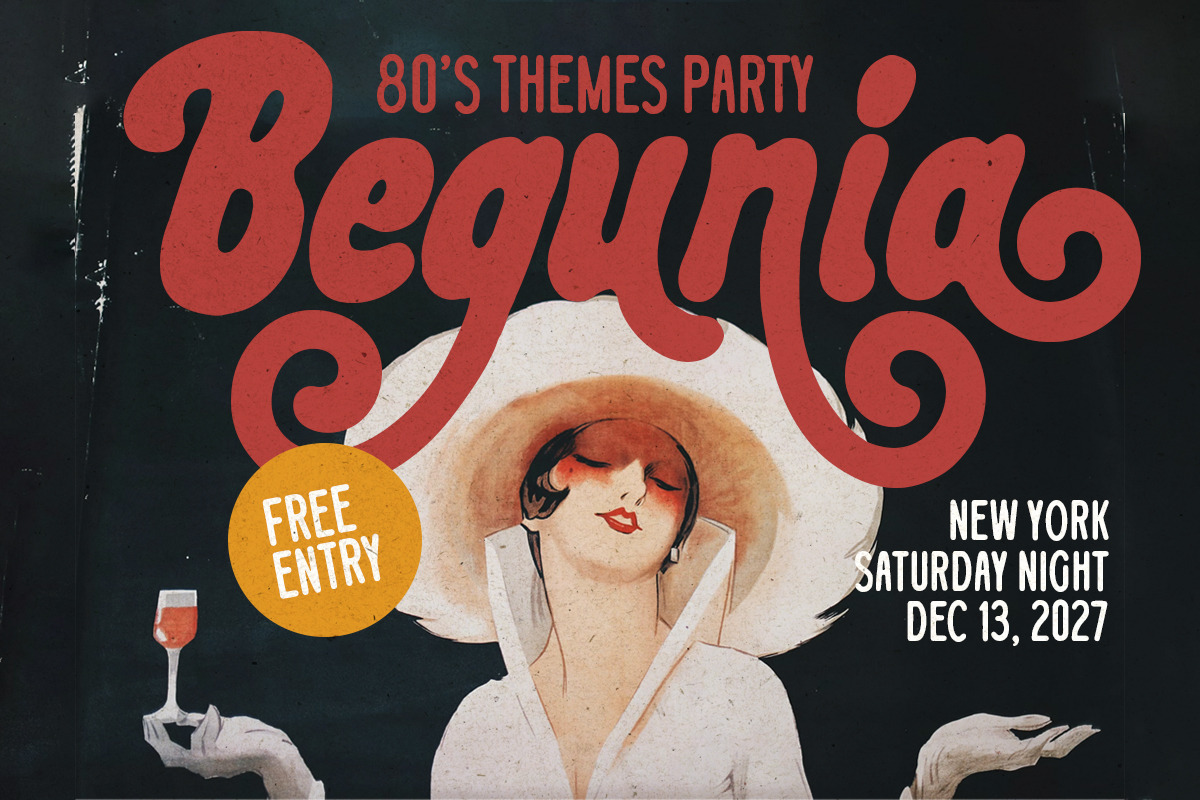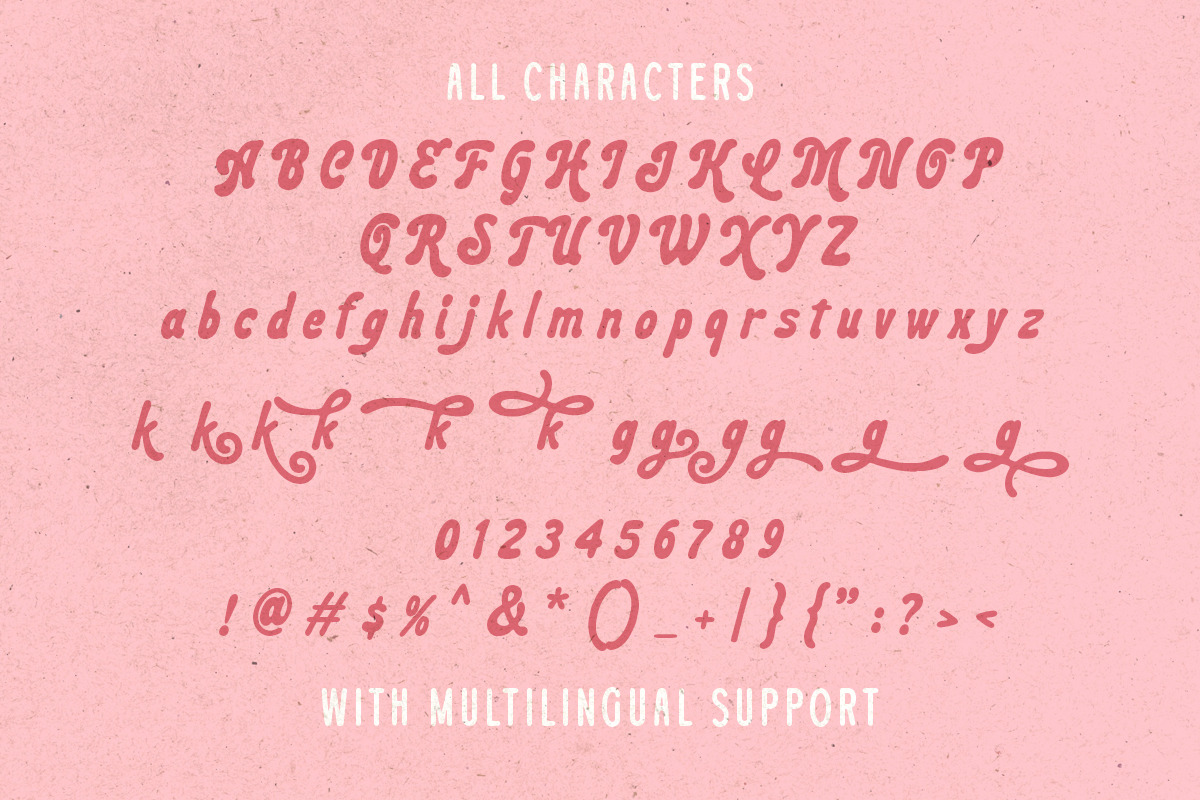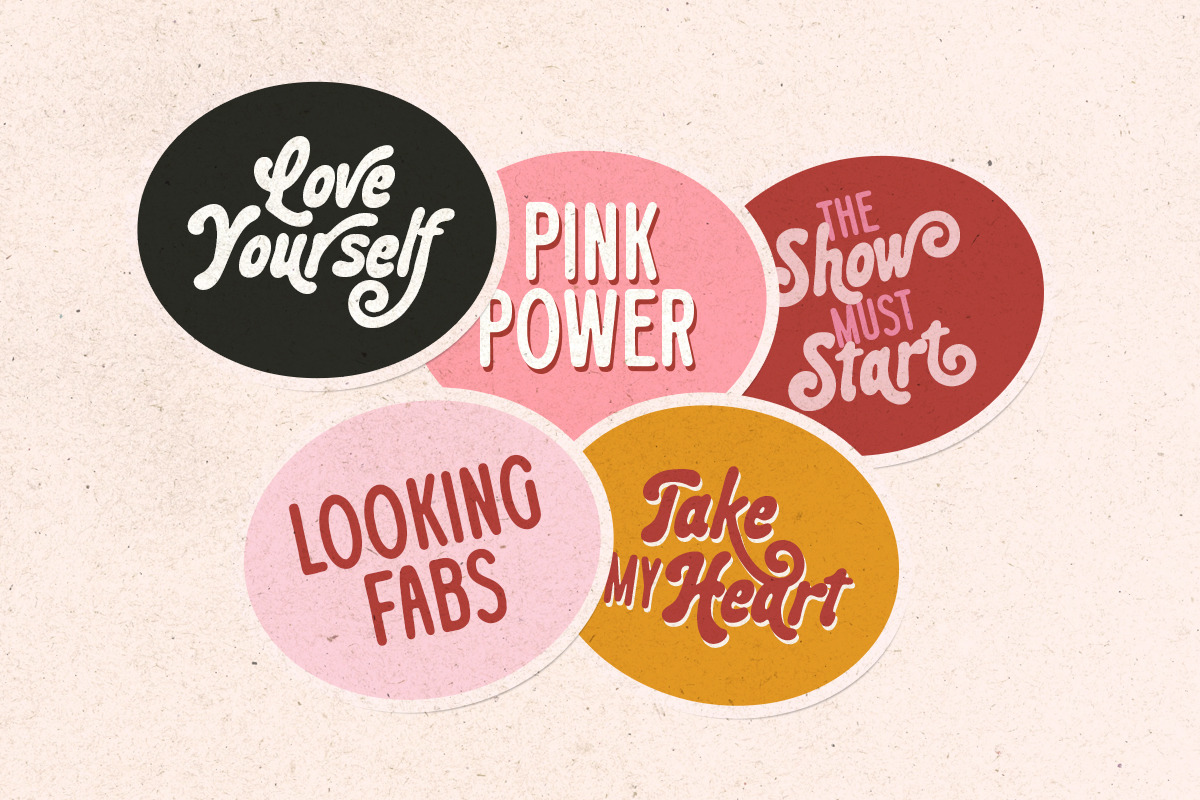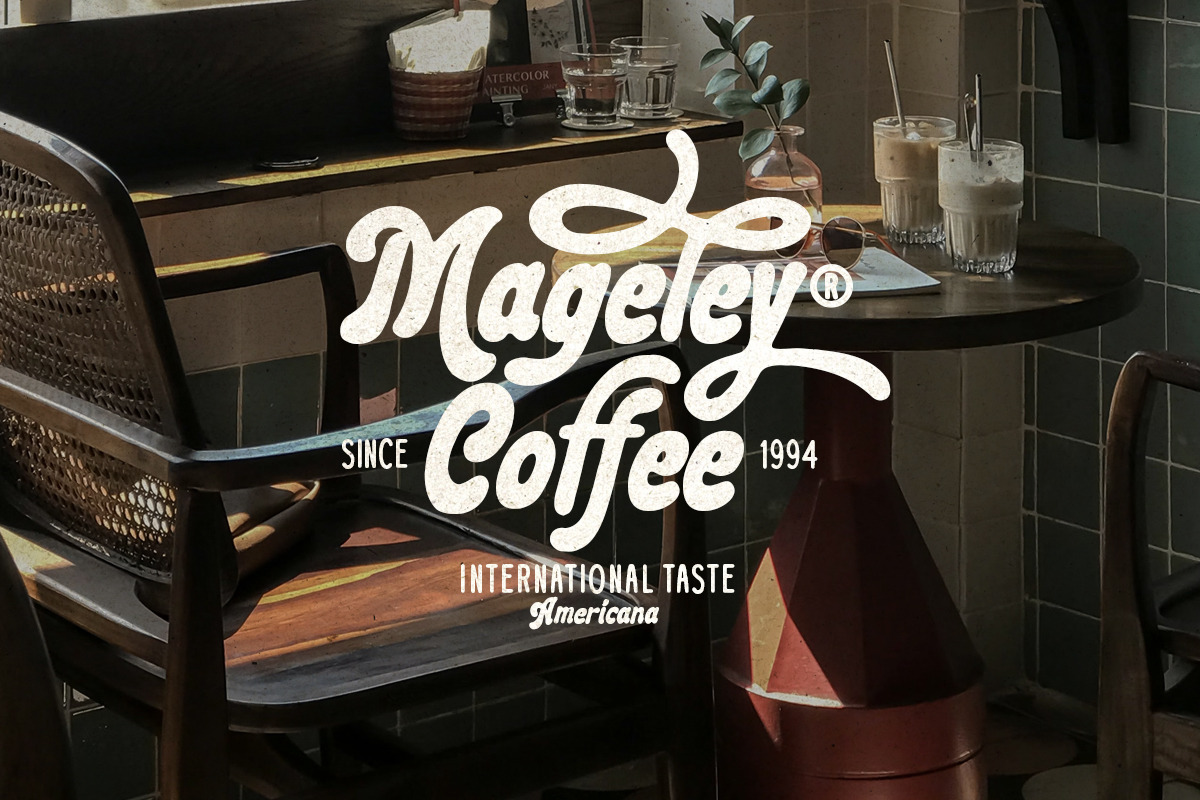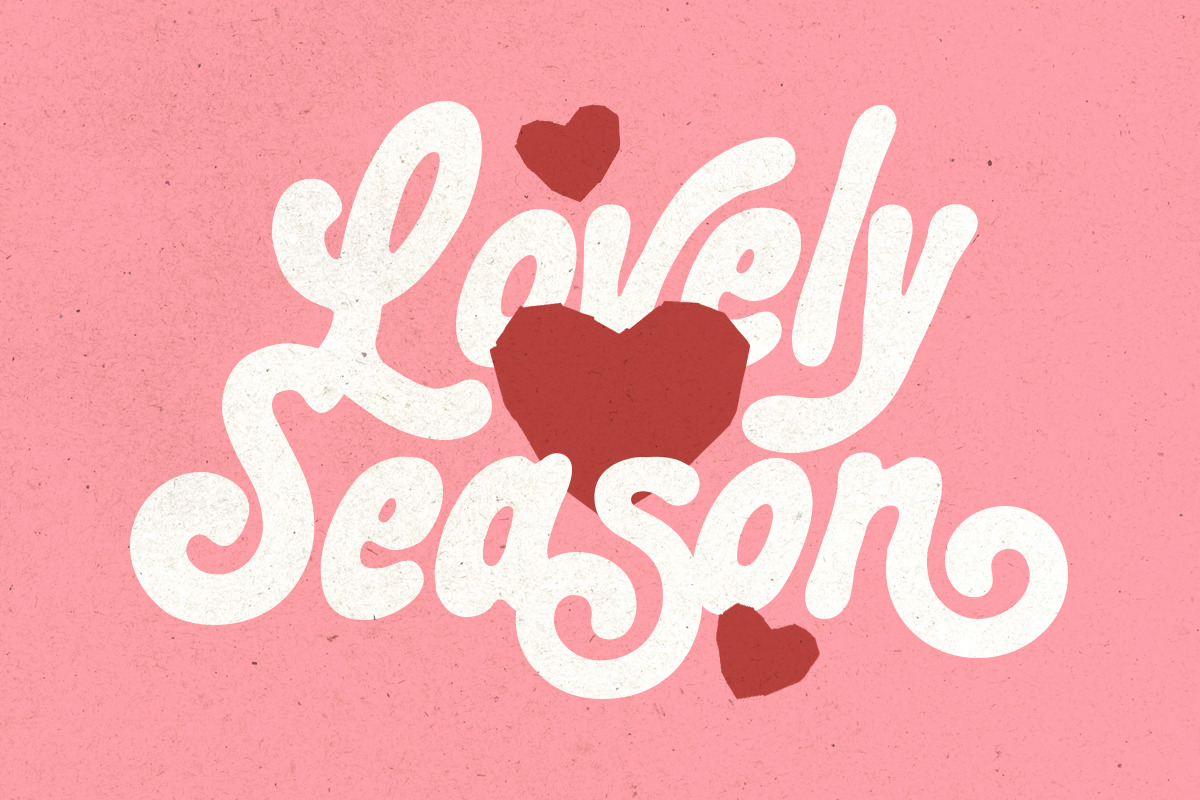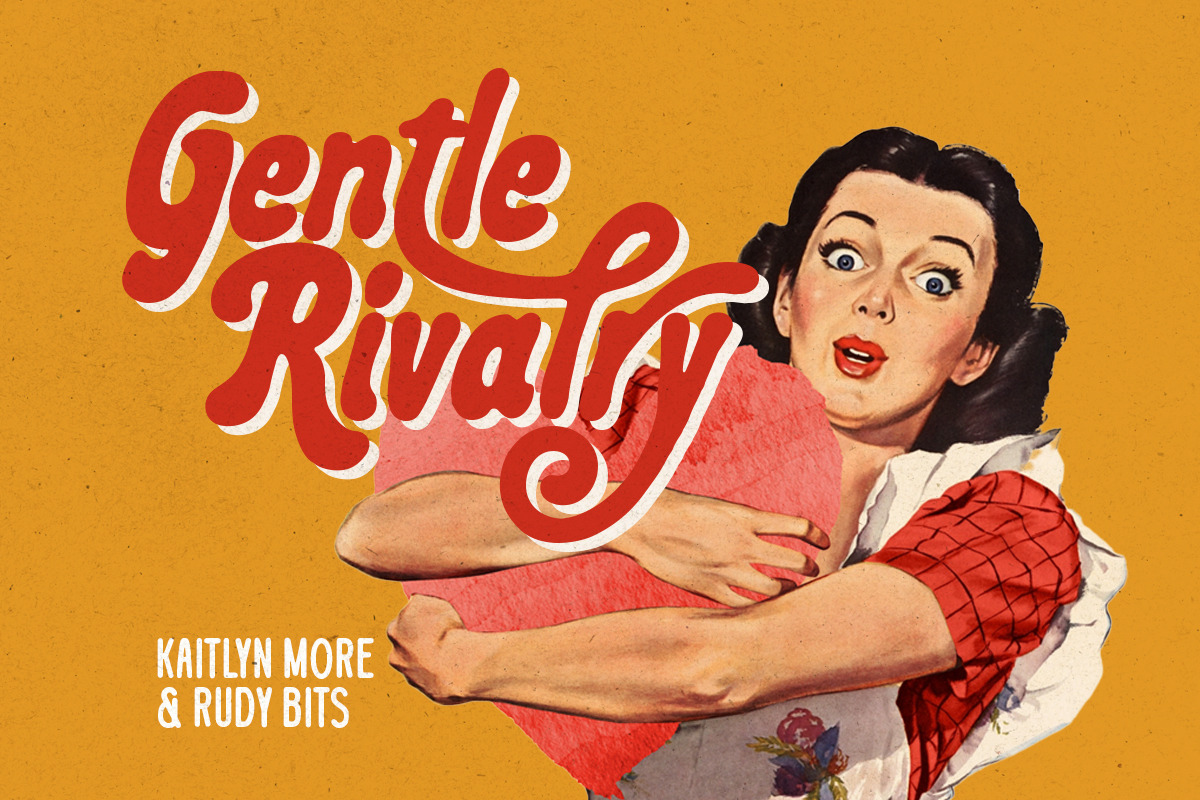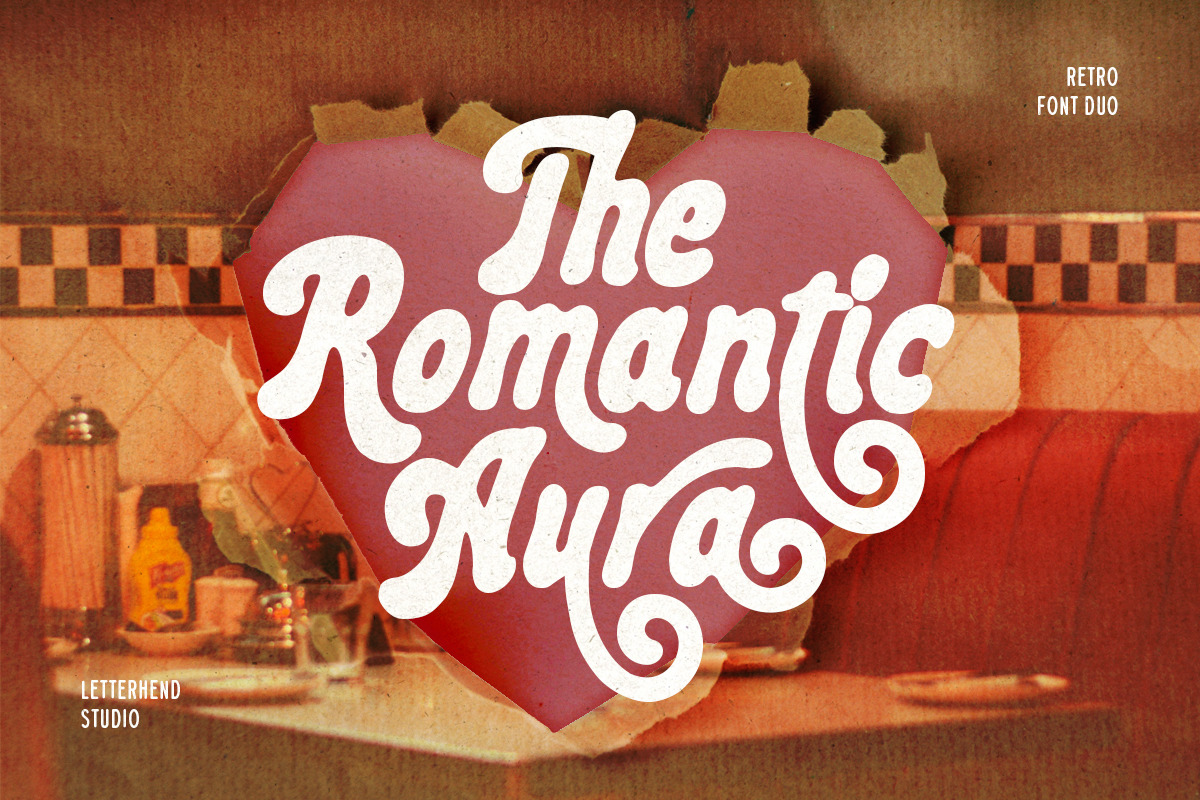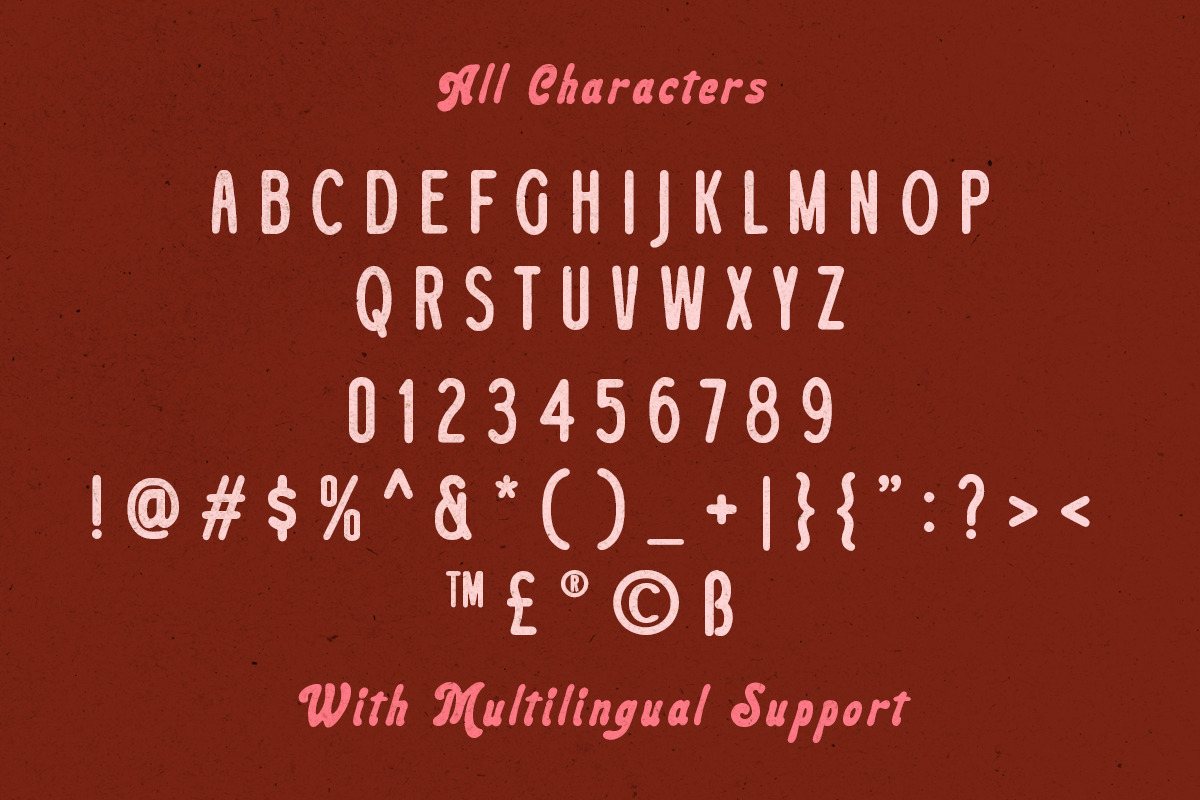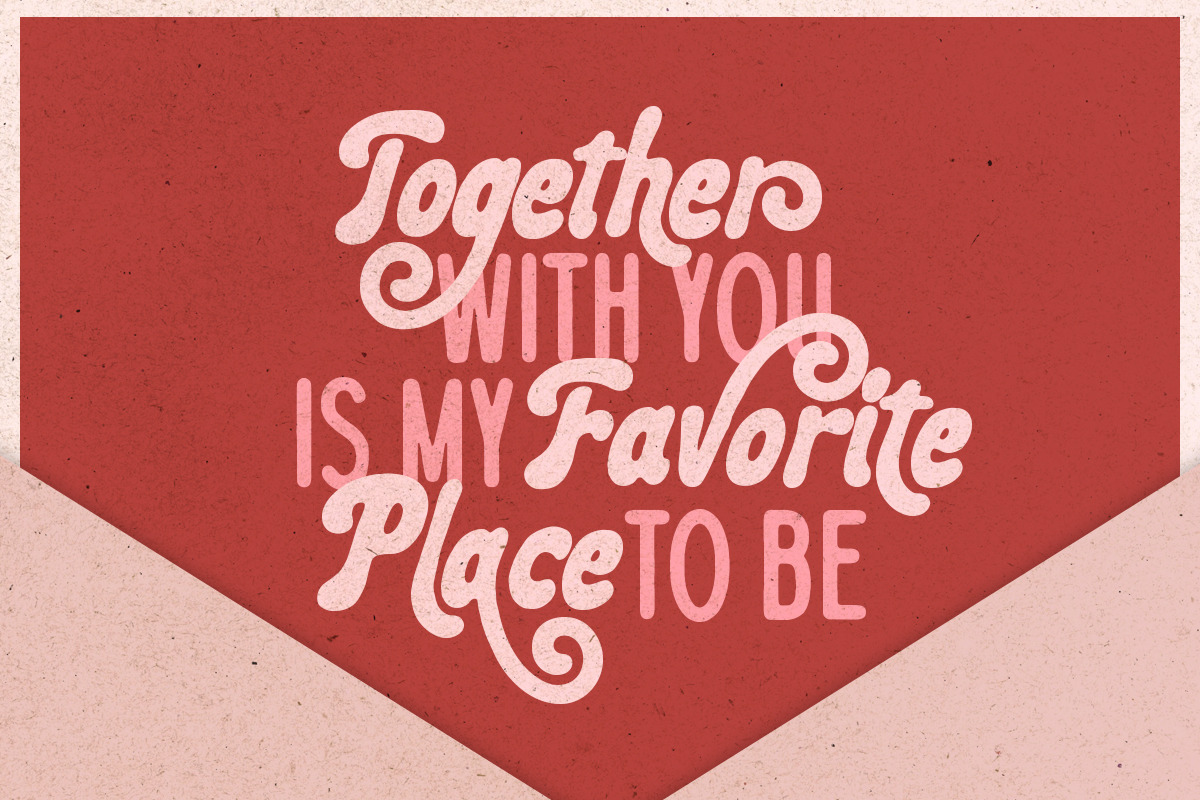
Romantic Aura Retro Font Duo
This Romantic Aura is a retro font duo with bold curves, soft script flow, and a cozy vintage feel that instantly brings warmth and charm. the lettering looks playful yet balanced, mixing expressive script with a supportive style that feels nostalgic and friendly. the vibe is romantic, retro, and cool in a laid-back way, making it easy to use for designs that want to feel heartfelt without looking old-fashioned.